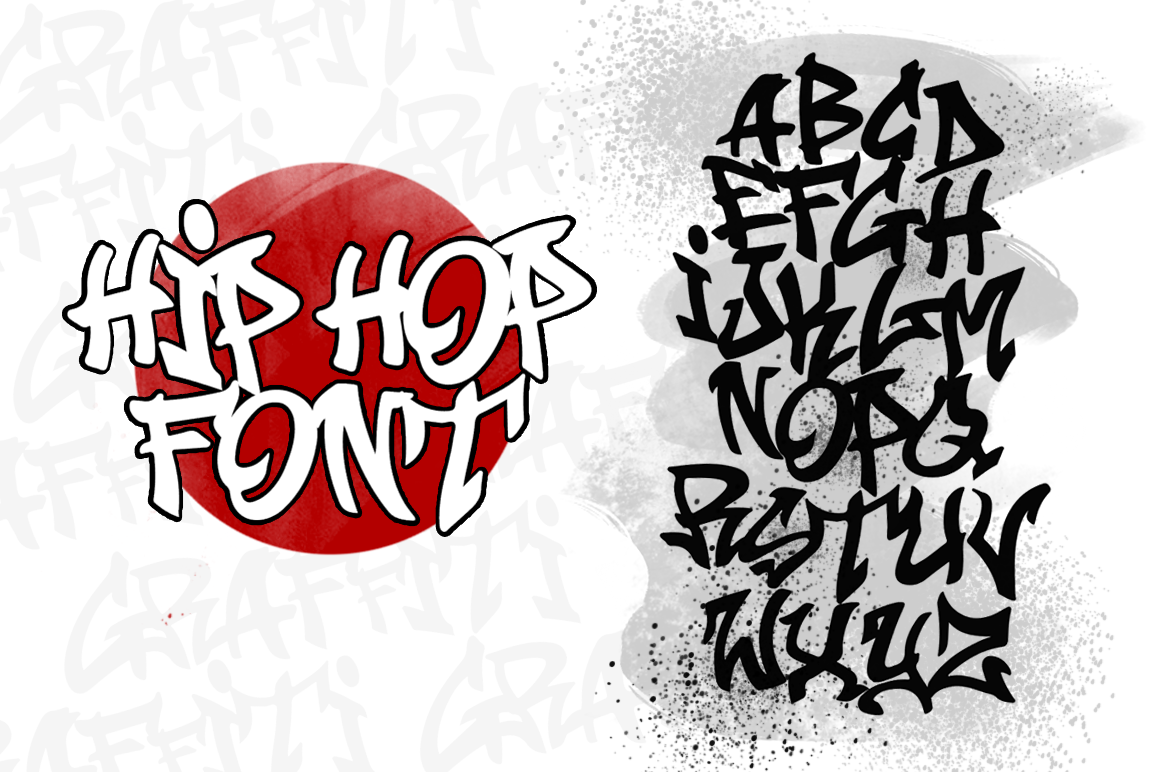
Samurai Hip Hop Graffiti Font
write your own color graffiti / easy to edit
Having been a graffiti artist many moons ago, early 90's, yep I'm that old, just having this font available for my graphic art and zines is awesome. I downloaded and started using straight away. It looks great for zine titles, and is legible by the everyday person who may not be used to graffiti styles.